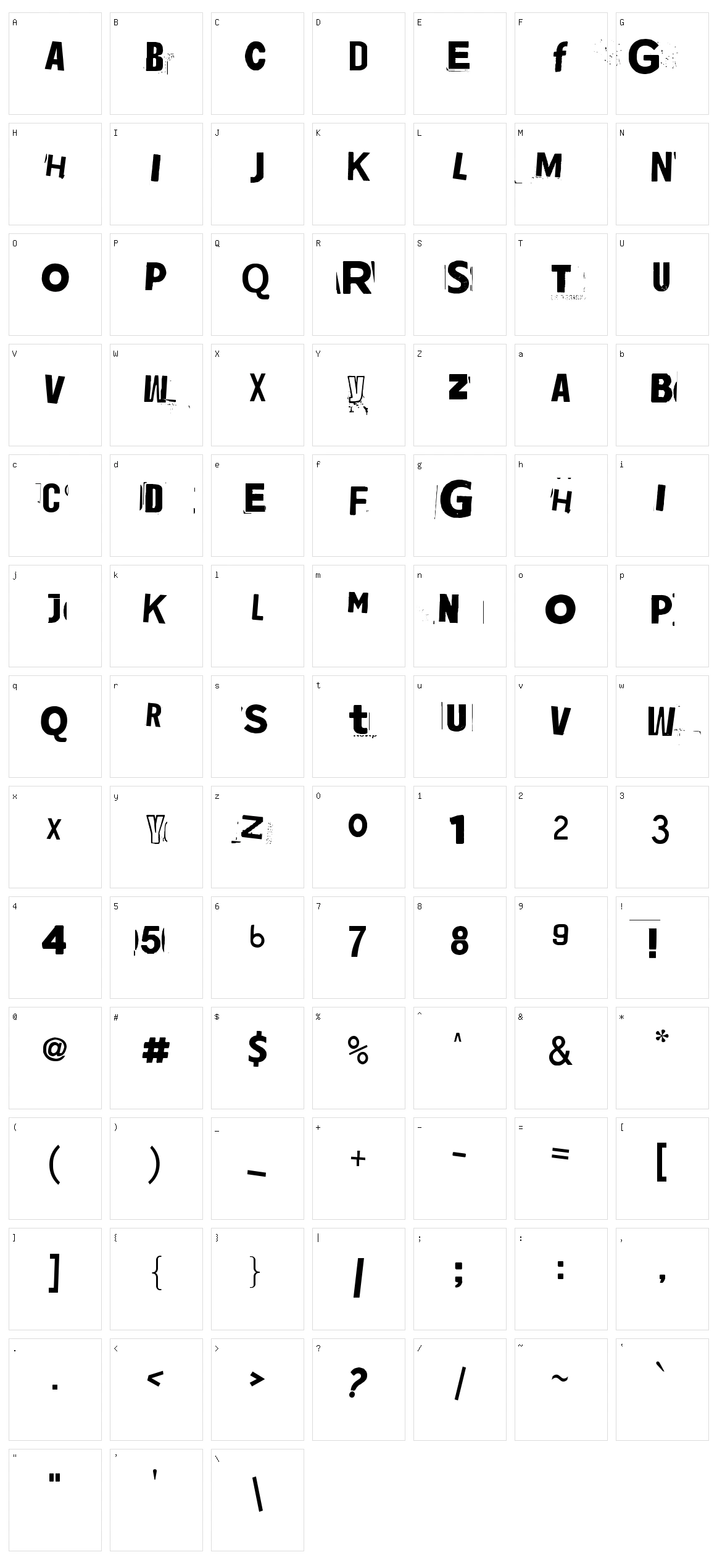
The free font Jadefedga is carefully designed by junkohanhero, showcasing a thoughtful balance of creativity and usability and falls under the Distorted font style. When you download the ZIP file, it contains only 173.12 KB of font files, making it lightweight and quick to download. Please review the license details below to understand permitted usage and distribution rights. If license information is not available, we recommend using this font for personal projects only or contacting the author directly for commercial usage permissions.